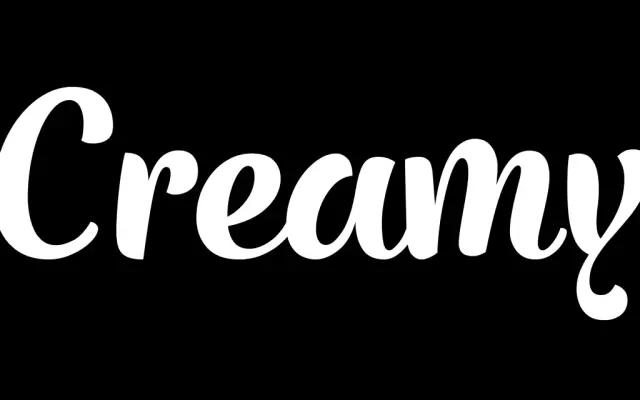
Vanille
A single-weight upright casual script drawn from brush lettering and sign painting traditions, aimed at food packaging, children's publishing and event print.
Vanille FY sits in the casual script genre, blending the loose energy of brush and ink with the snappier rhythm of hand-lettered sign painting. It is offered as a single Regular style with broad Latin Extended coverage across 27 languages. The upright stance and bouncy letterforms make it well suited to packaging, event posters and children's book covers where a crafted, informal warmth is needed.
Classified as a script due to its brush-and-ink lettering origins and hand-lettered sign painting influence; described as an upright casual script rather than a connected or formal cursive.